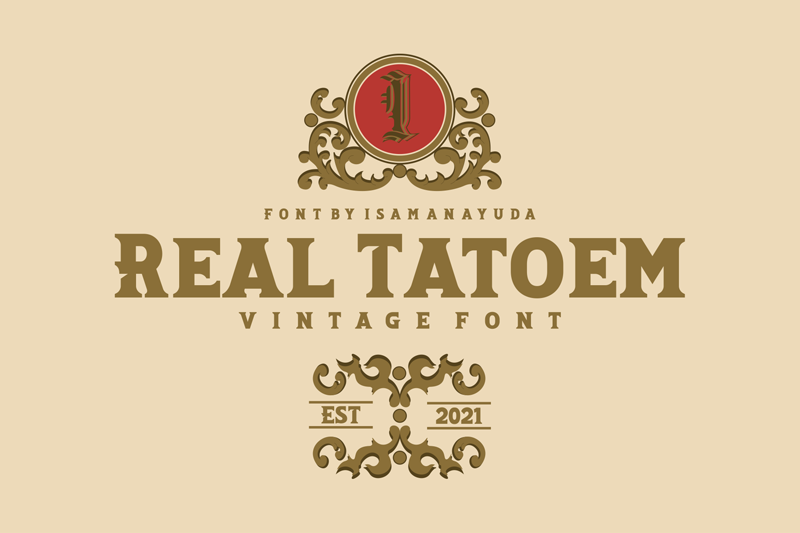
Preview and download Real Tatoem Font. Created by ismanayuda in Fancy Retro styles with Demo license.
Font name: | Real Tatoem |
Author: | ismanayuda |
Real Tatoem is a cool, bold and thick lettered display font. Add this vintage styled font to each of your labels, posters or game titles and you will be amazed by the outcome. |